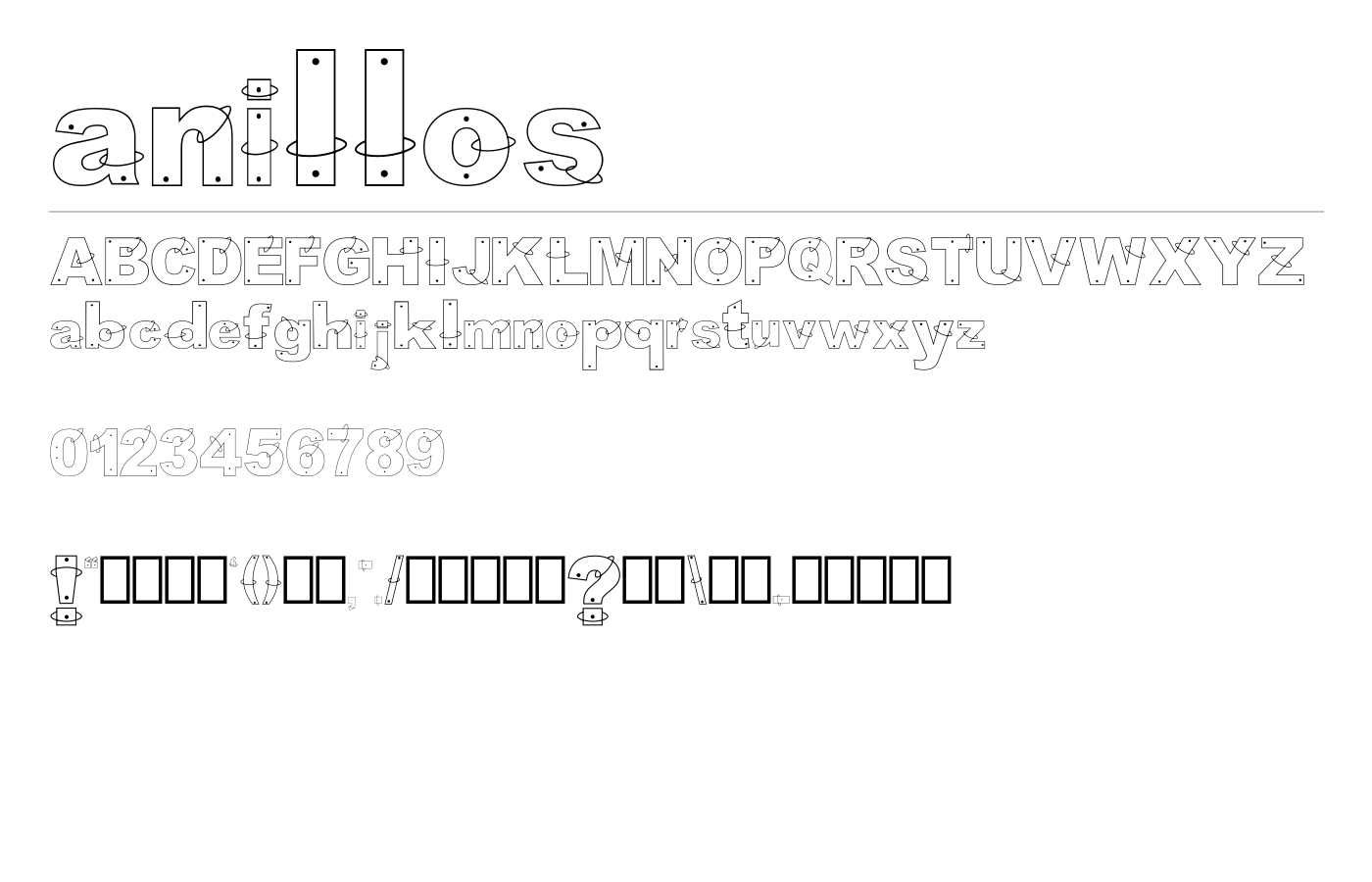
Anillos is a playful and modern sans serif font characterized by its bold, outlined letterforms and subtle circular embellishments that create a sense of movement and fun. The font has a strong, geometric structure with a consistent weight and wide spacing, making it ideal for eye-catching headlines, branding, and creative designs that seek a lively, approachable vibe. Its unique style adds personality while maintaining clarity and readability, perfect for contemporary projects looking to stand out.
anillos Font
About anillos Font